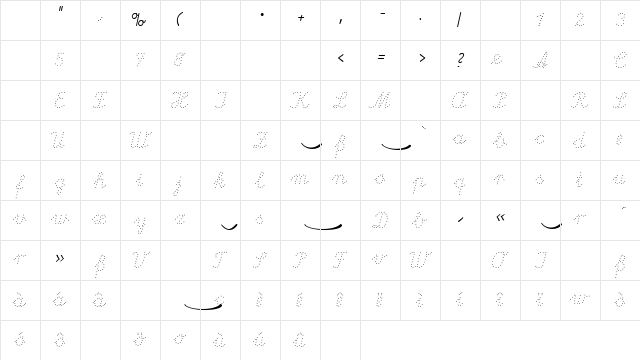
Lapunkt Regular Free Font
Lapunkt Regular
Design Context for Lapunkt
Lapunkt is a composed and adaptable typeface that performs quietly and consistently across a wide range of design contexts.